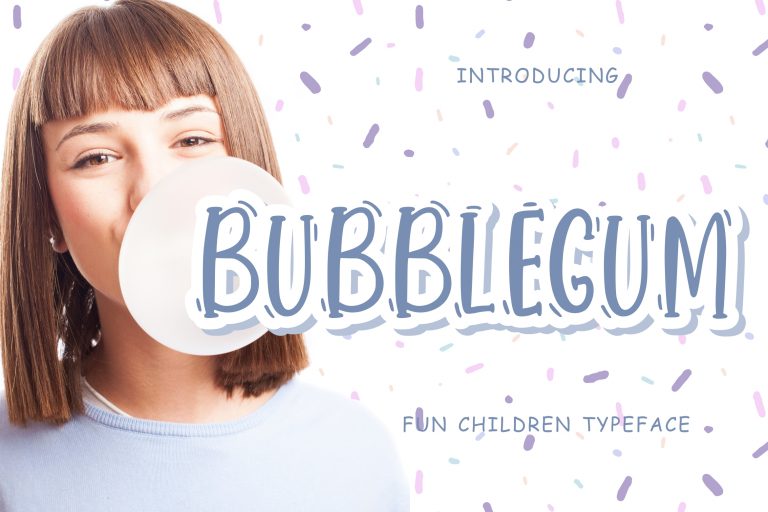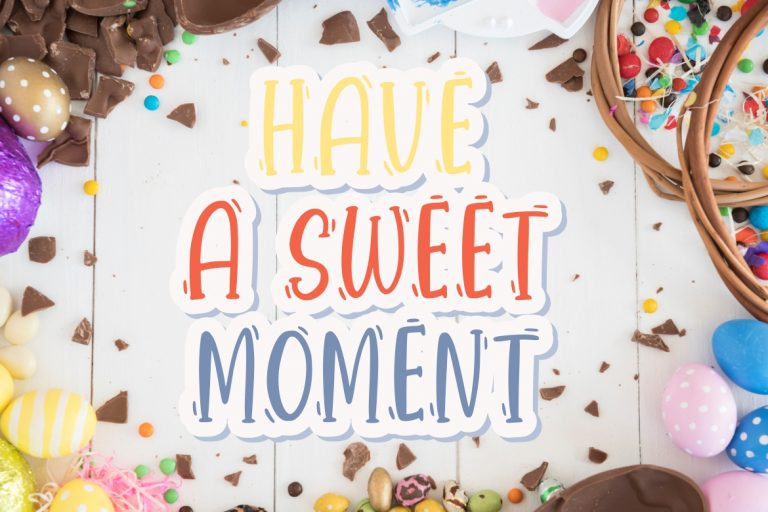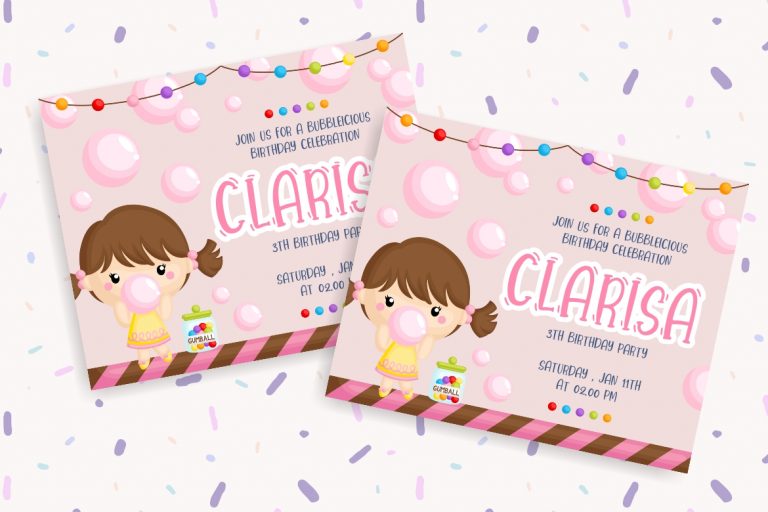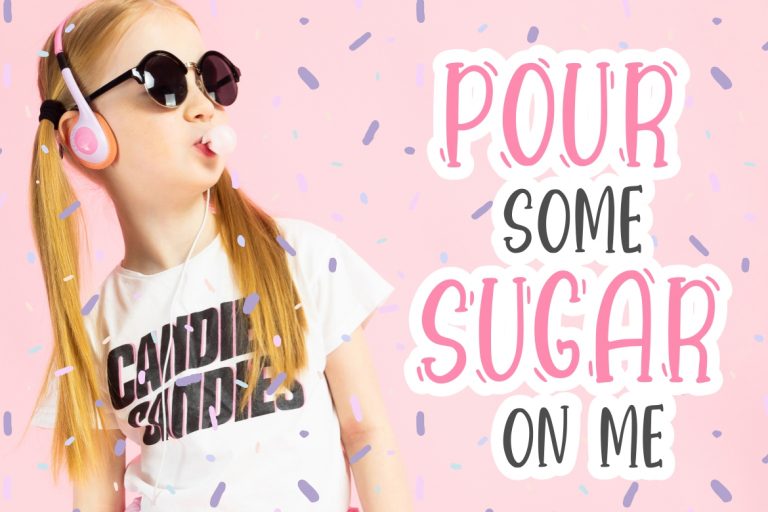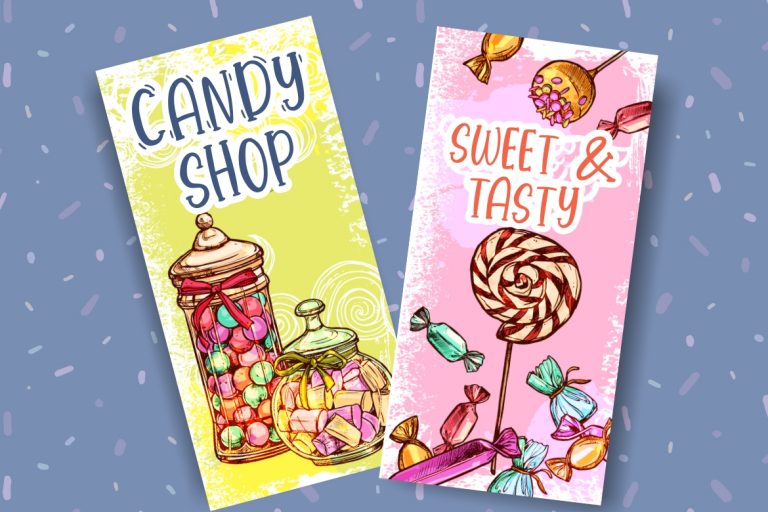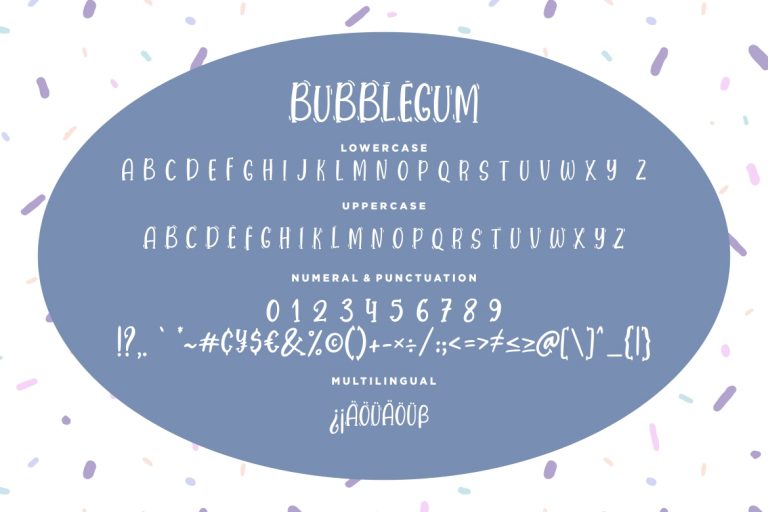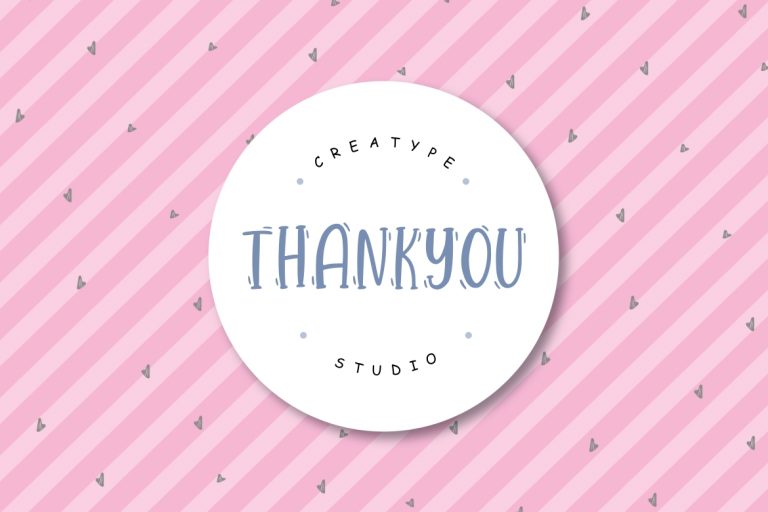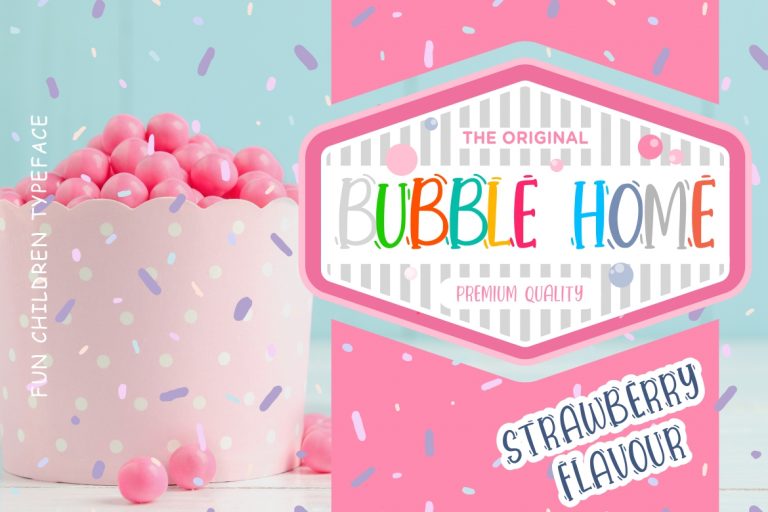
Bubblegum is a handwritten fun children font is suit for children and kindergarten occasion.
Bubblegum is perfect for branding projects, logo, wedding designs, social media posts, advertisements, product packaging, product designs, label, photography, watermark, invitation, stationery and any projects that need handwriting taste.
• Fonts include multilingual support for; ä ö ü Ä Ö Ü ß ¿ ¡
Bubblegum Fun Children Typeface